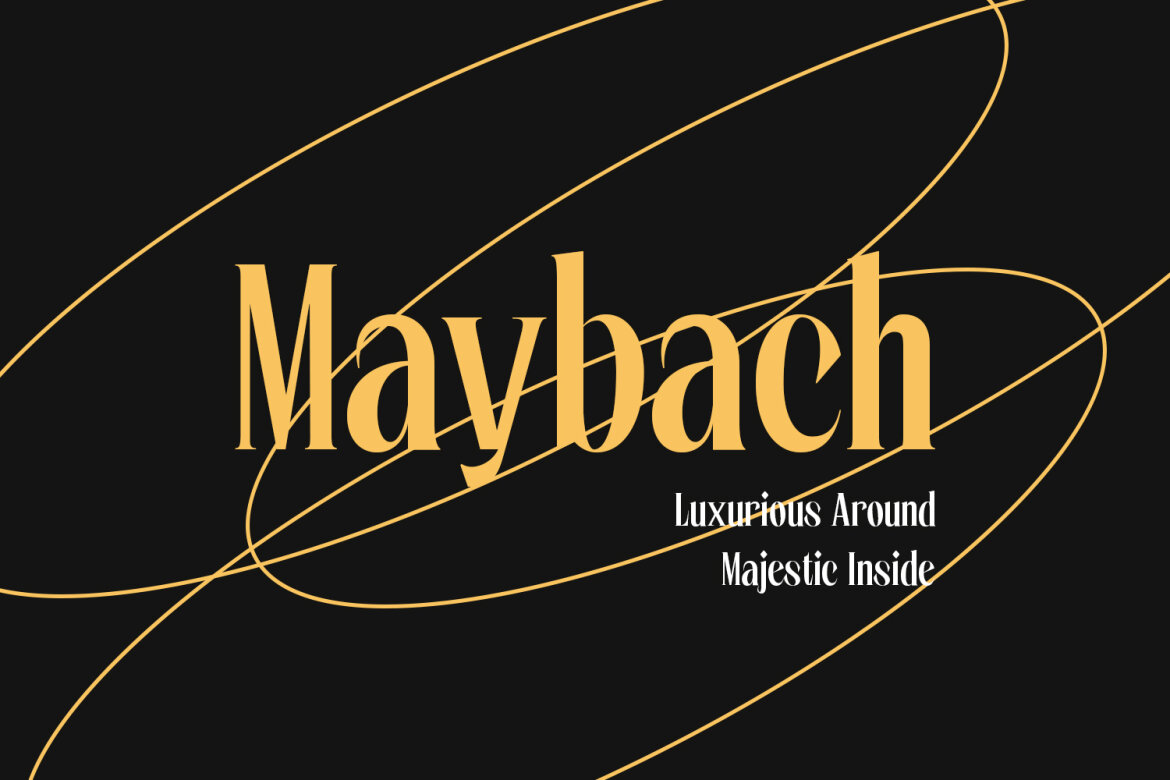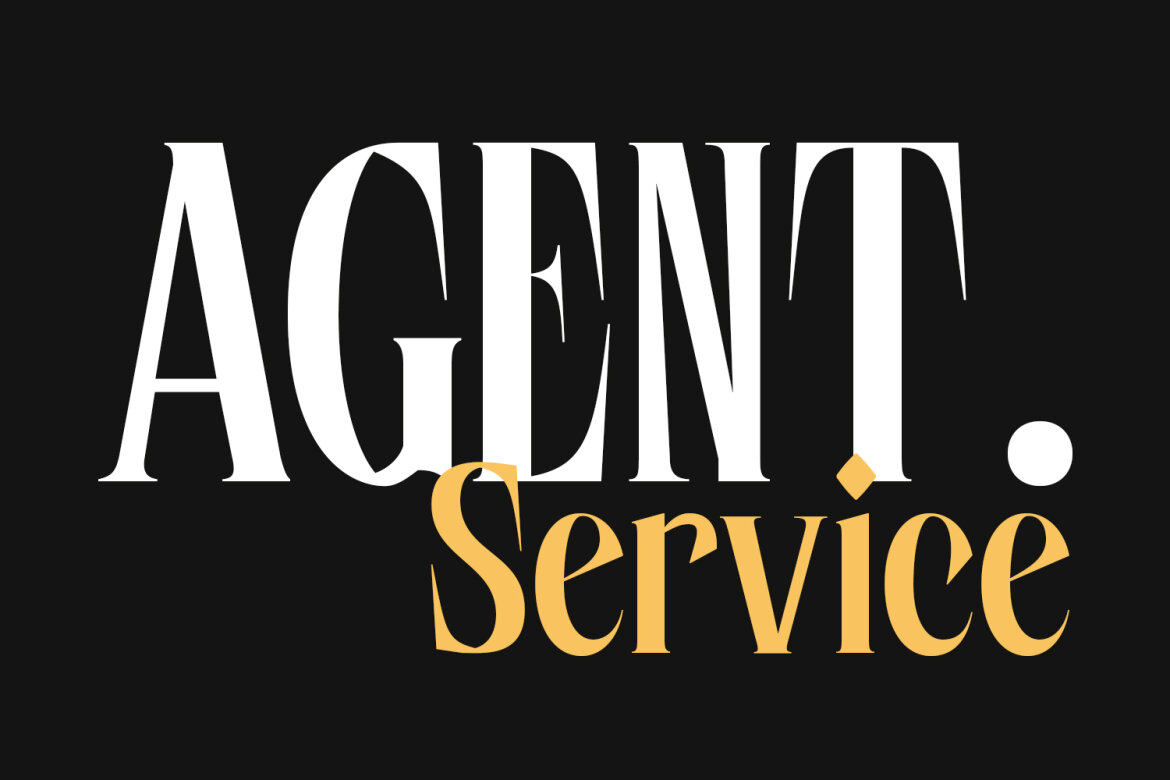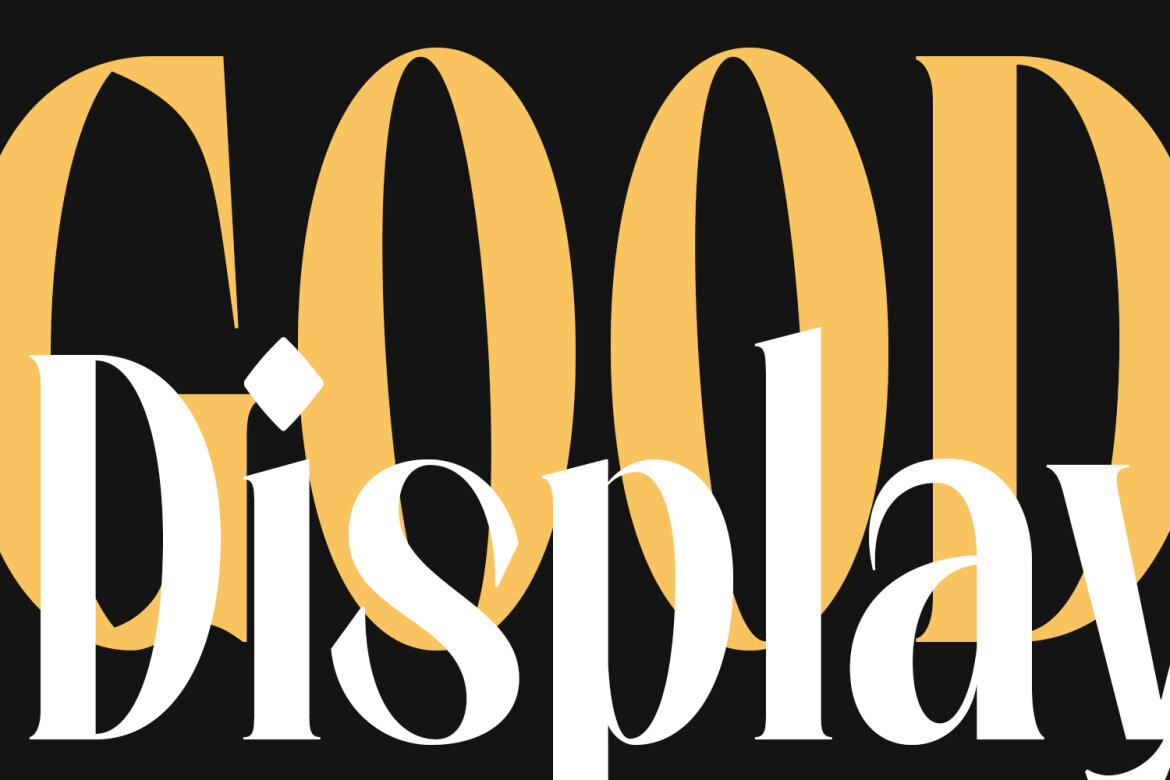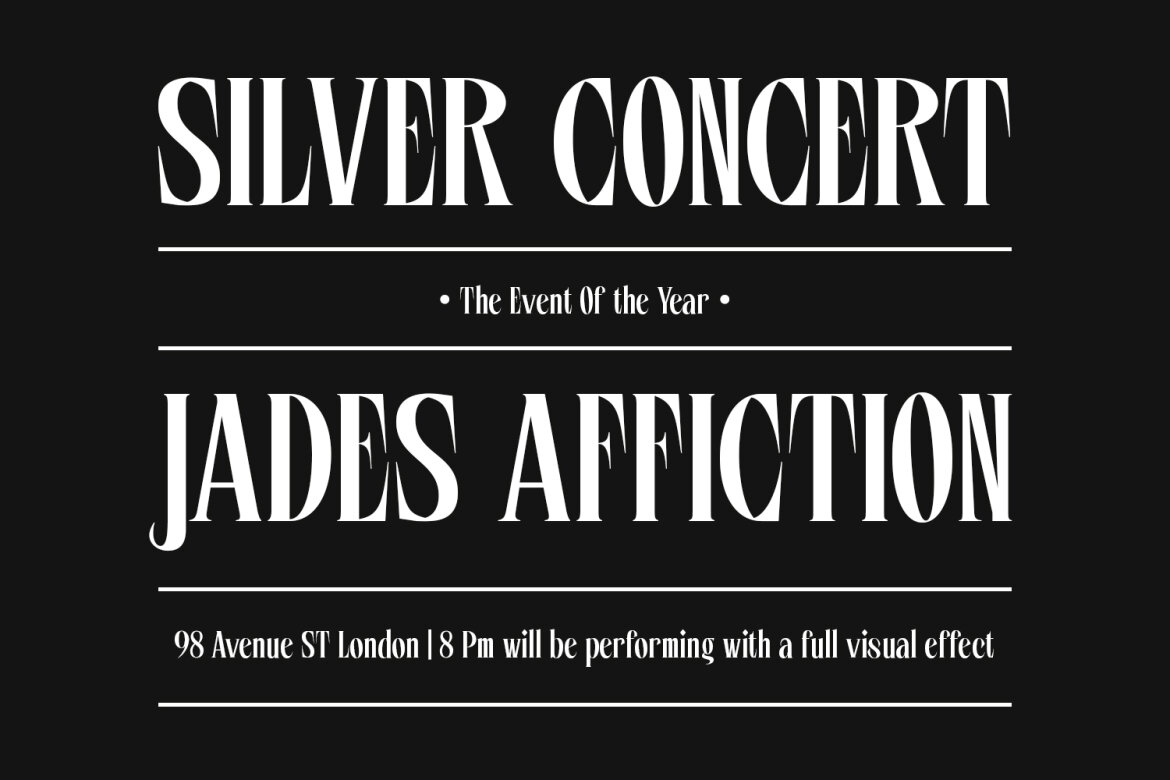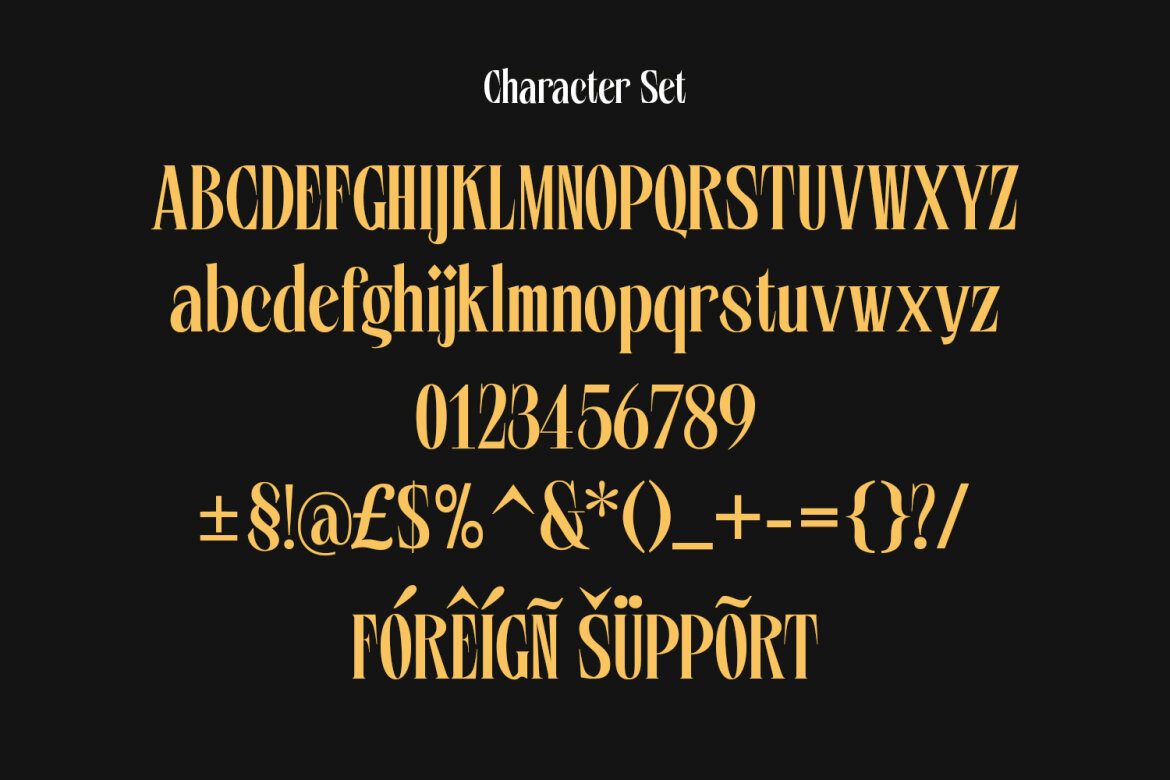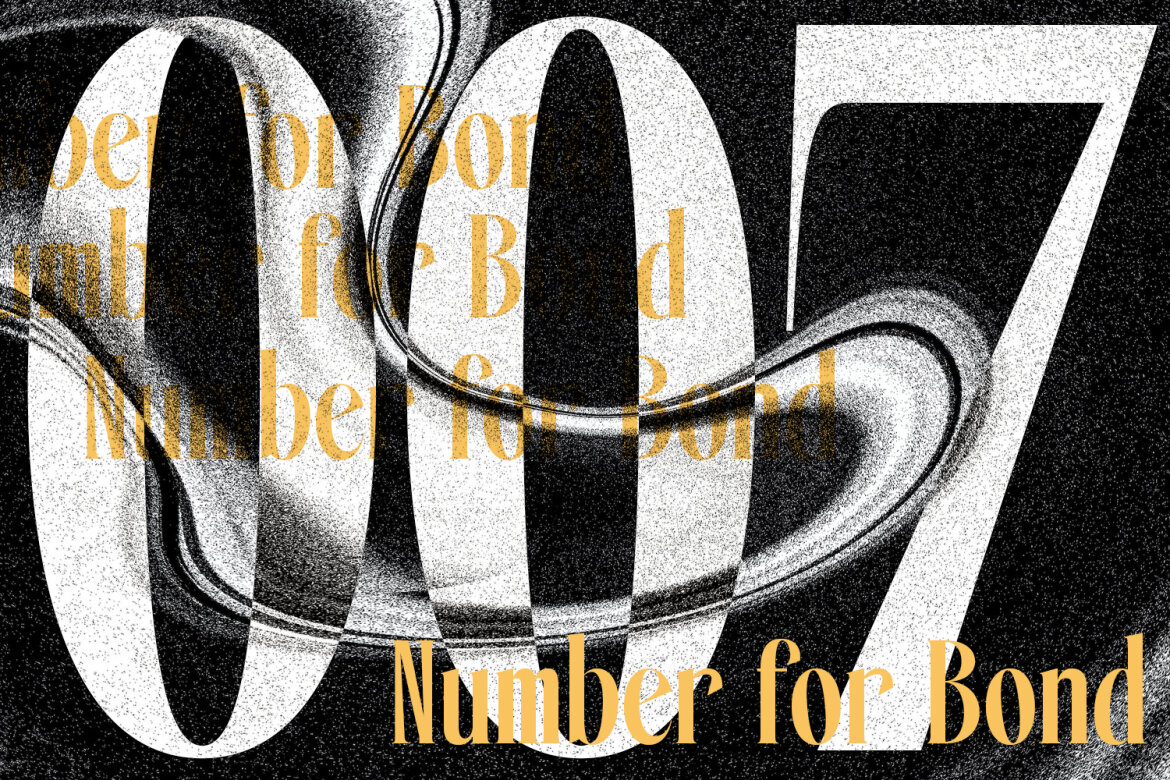
Brites FREE Serif Font
Brites
Brites is a modern high contrast serif font. With regular contrast stroke, fun character with a bit of ligatures and alternates. To give you an extra creative work. Brites font support multilingual more than 100+ language. This font is good for logo design, Social media, Movie Titles, Books Titles, a short text even a long text letter and good for your secondary text font with sans or script. Make a stunning work with Brites font.